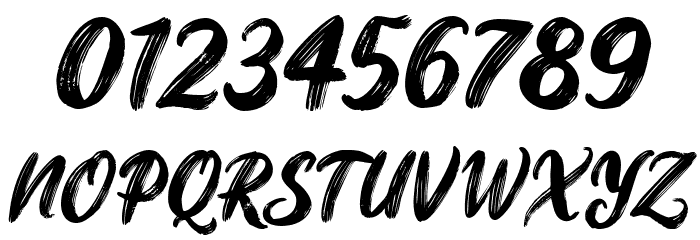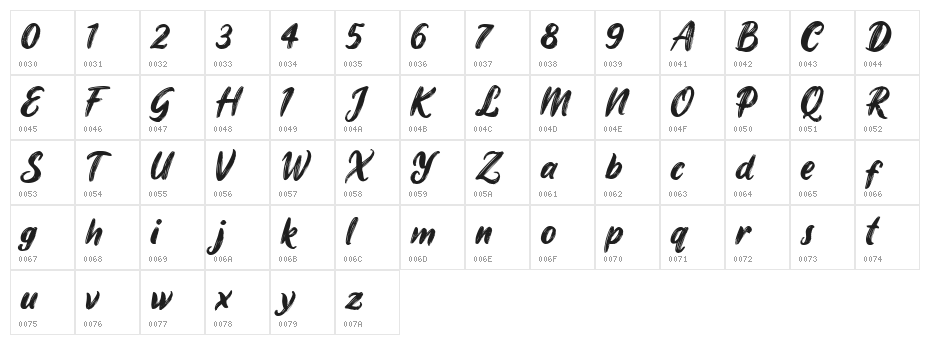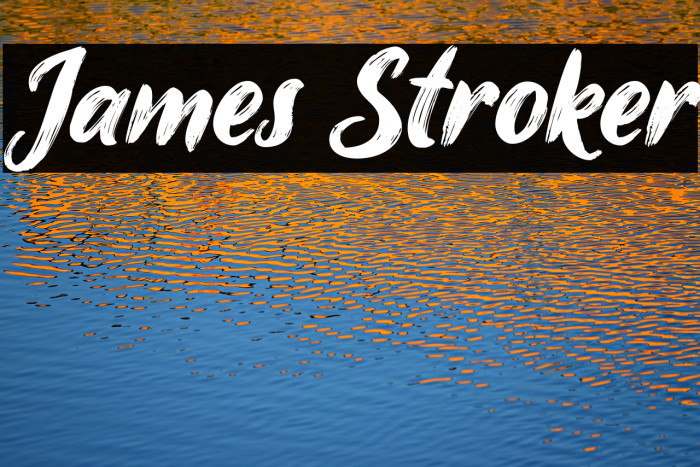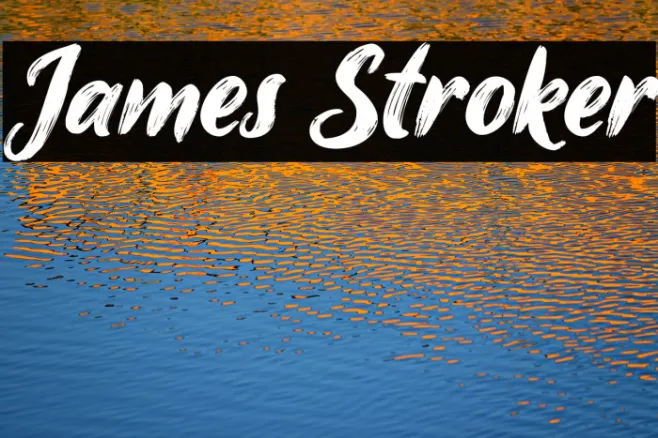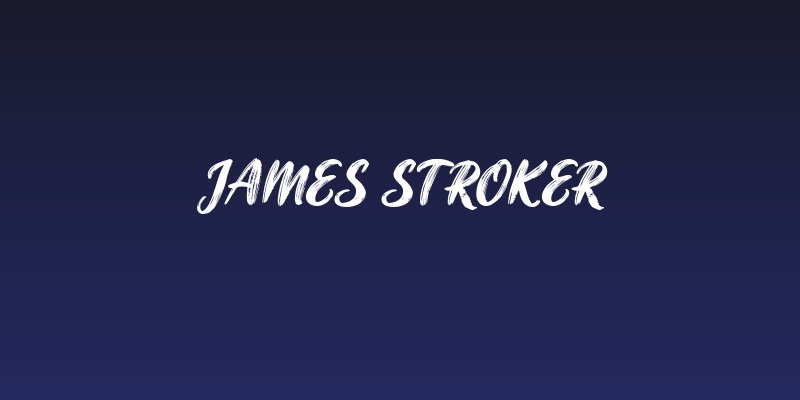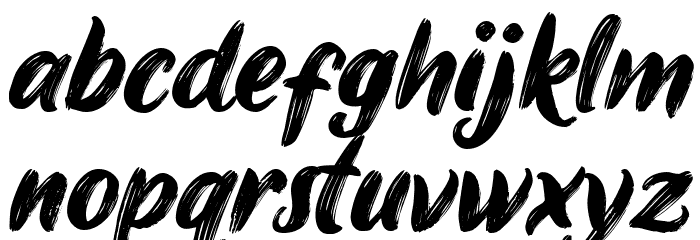
James Stroker Font
James Stroker Description
This font features a bold, expressive brush style with dynamic strokes and a hand-painted appearance. The letters are characterized by their fluid, sweeping curves and varying stroke thickness, giving it a lively and energetic feel. The uppercase and lowercase letters maintain a consistent style, with the uppercase being slightly more pronounced. Numbers and special characters follow the same artistic brushstroke design, ensuring uniformity across all characters. The font's texture suggests a sense of movement and creativity, making it ideal for projects that require a personal, artistic touch.
| Proposed Projects | Ideal for artistic projects, branding, posters, and invitations that require a creative and energetic touch. |